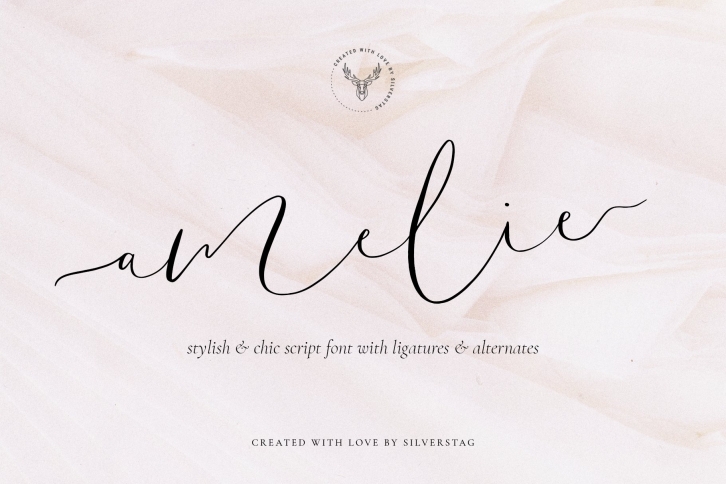
Amelie - Chic & Elegant Script Font Download
Amelie is a gorgeous font that was realeased on March 24, 2020. The font can be used in many style contexts and design environments. Perfect for invitations, magazines, websites, logos, and more! It was designed by SilverStag and the file size is 8.92 MB. Thanks for checking out this font!